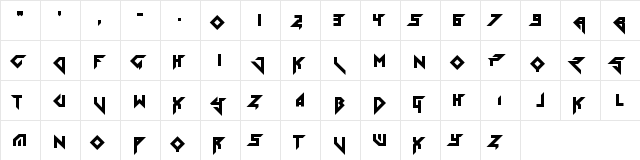
Tolerant Regular
| Designer | Andrew McCluskey |
Design Context for Tolerant Typeface
Tolerant is a composed and adaptable typeface that performs quietly and consistently across a wide range of design contexts.